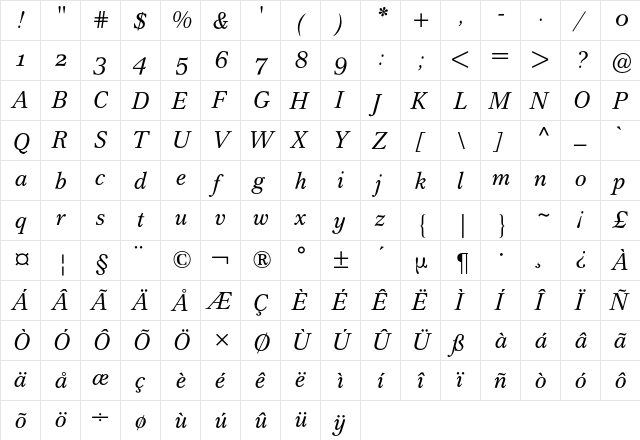
Cremona Expert BQ Regular Font Preview
Cremona Expert BQ Regular
Cremona Expert BQ Regular Font Details
Design Context for Cremona Expert BQ Typeface
Cremona Expert BQ offers clean, dependable letterforms without strong stylistic allegiance, making it a practical choice for designers who need flexibility.
Pro Tip: Pair Cremona Expert BQ with a font of contrasting weight or personality to build a more expressive typographic hierarchy.